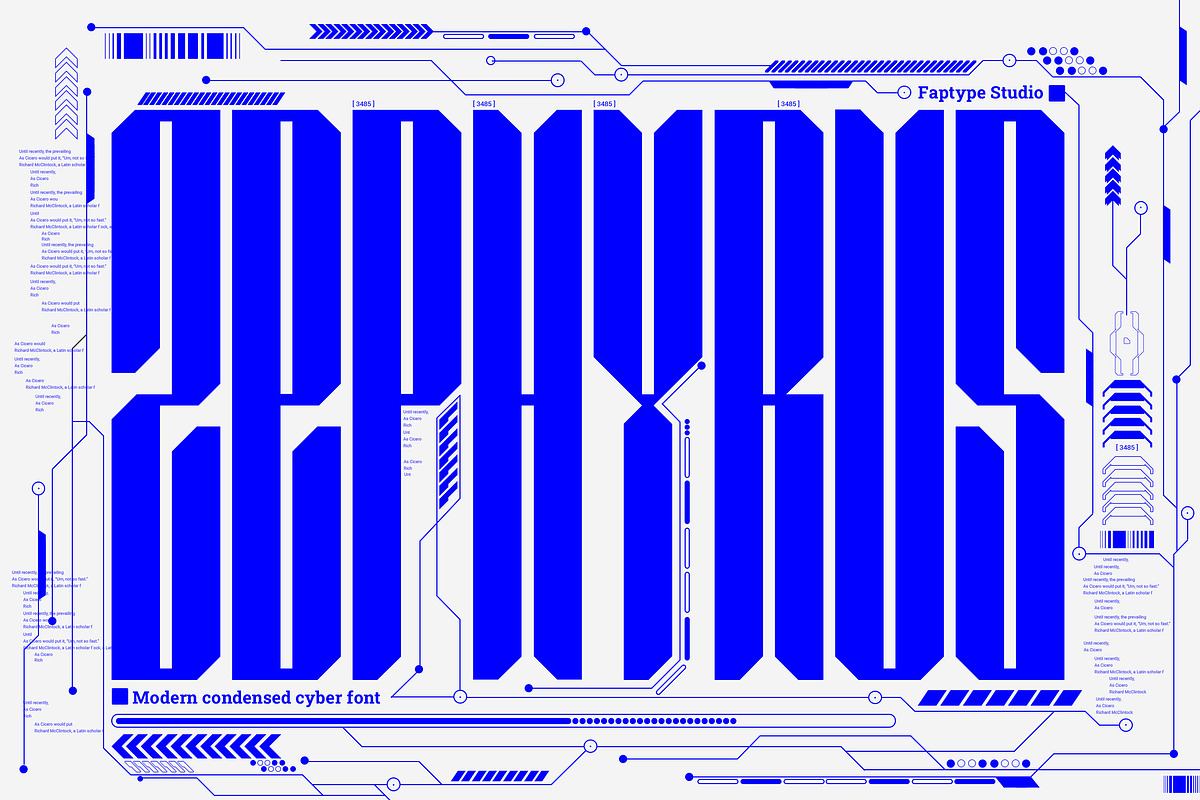
Zephyrus | Modern Condensed Cyber Free Download
Zephyrus | Modern Condensed Cyber Font Free Download is a sleek and futuristic typeface designed to evoke the energy of the digital age. With its sharp, condensed letterforms and modern, cyber-inspired look, Zephyrus is perfect for tech branding, website headers, sci-fi posters, and gaming graphics.
This font combines clean lines and a condensed style to offer a bold, high-tech appearance that commands attention. Whether you're creating a futuristic logo, designing digital ads, or building a cutting-edge web interface, Zephyrus enhances your typography with a sophisticated and dynamic edge.